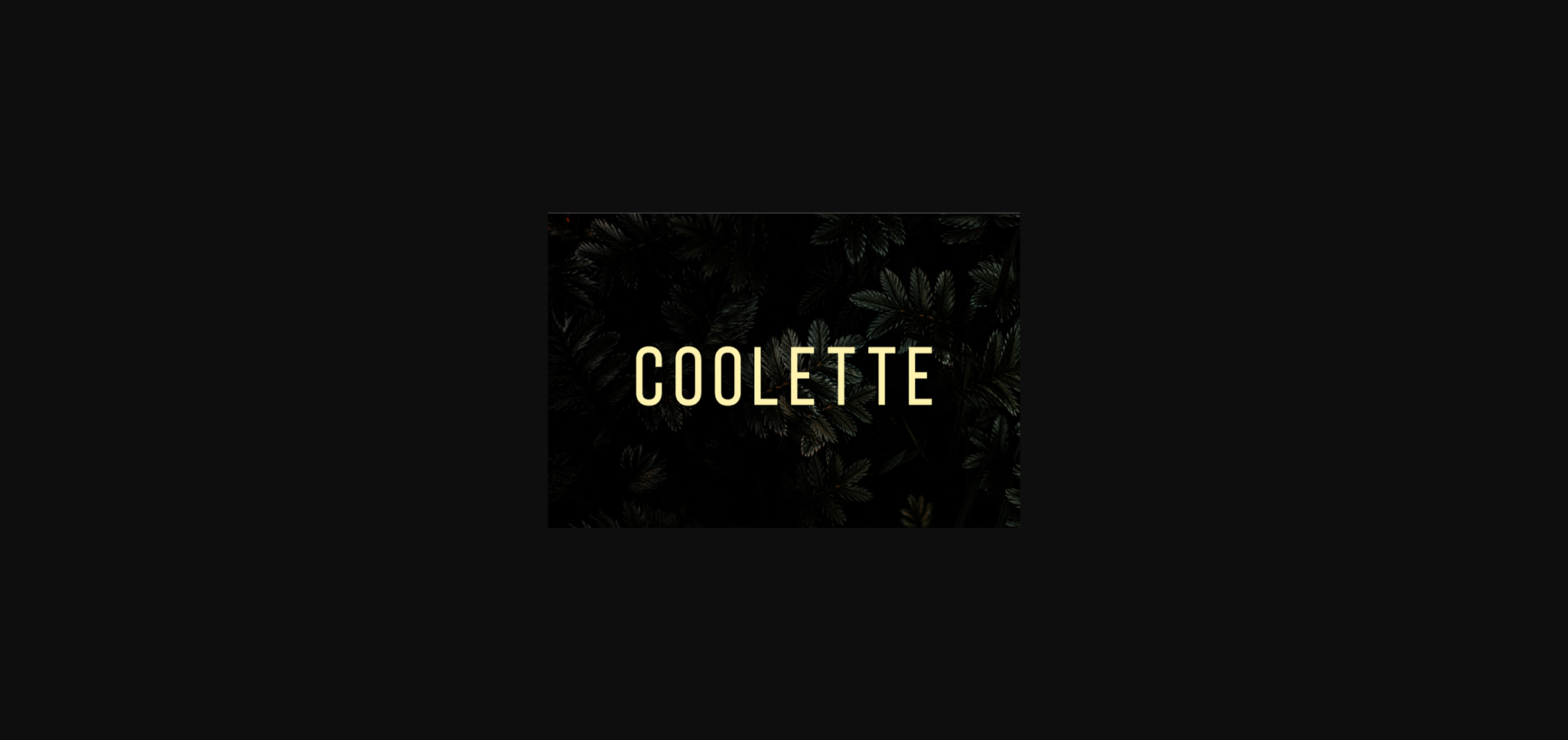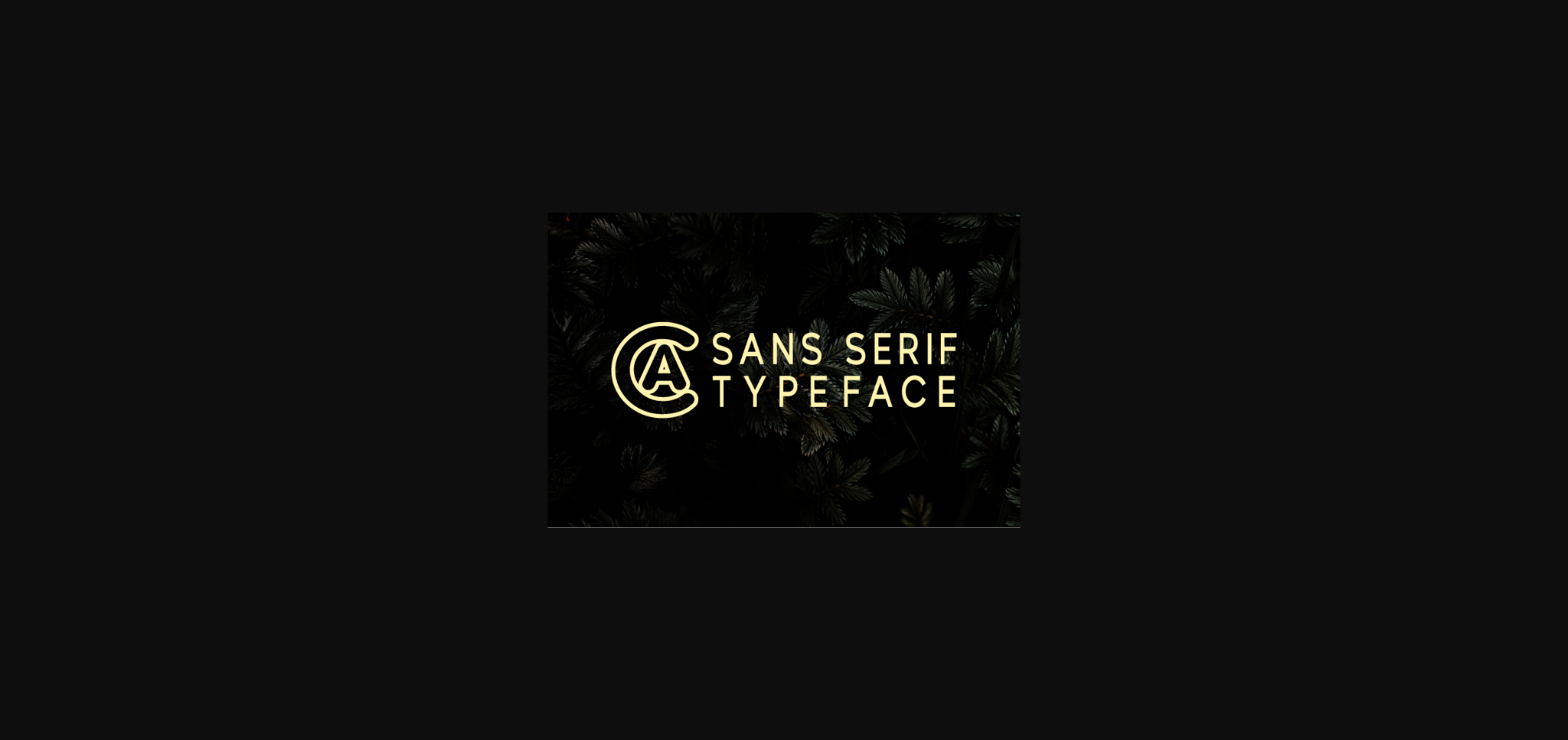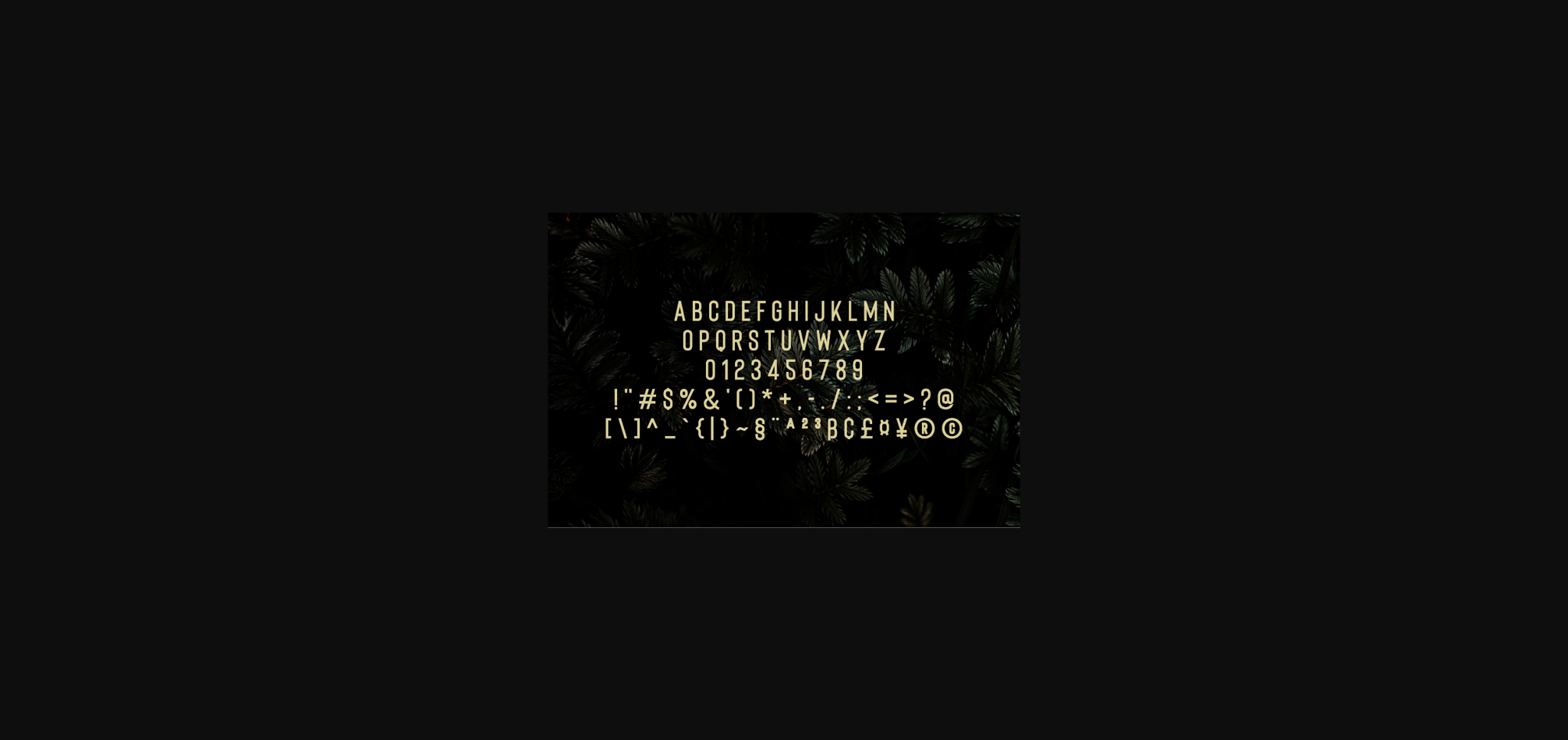
Coolette Font
About Coolette Font
Coolette is a simple and casual sans serif font with an undeniably clean feel. With its neat and beautiful arrangement of letters, this typeface will look outstanding in both formal and non-formal designs.